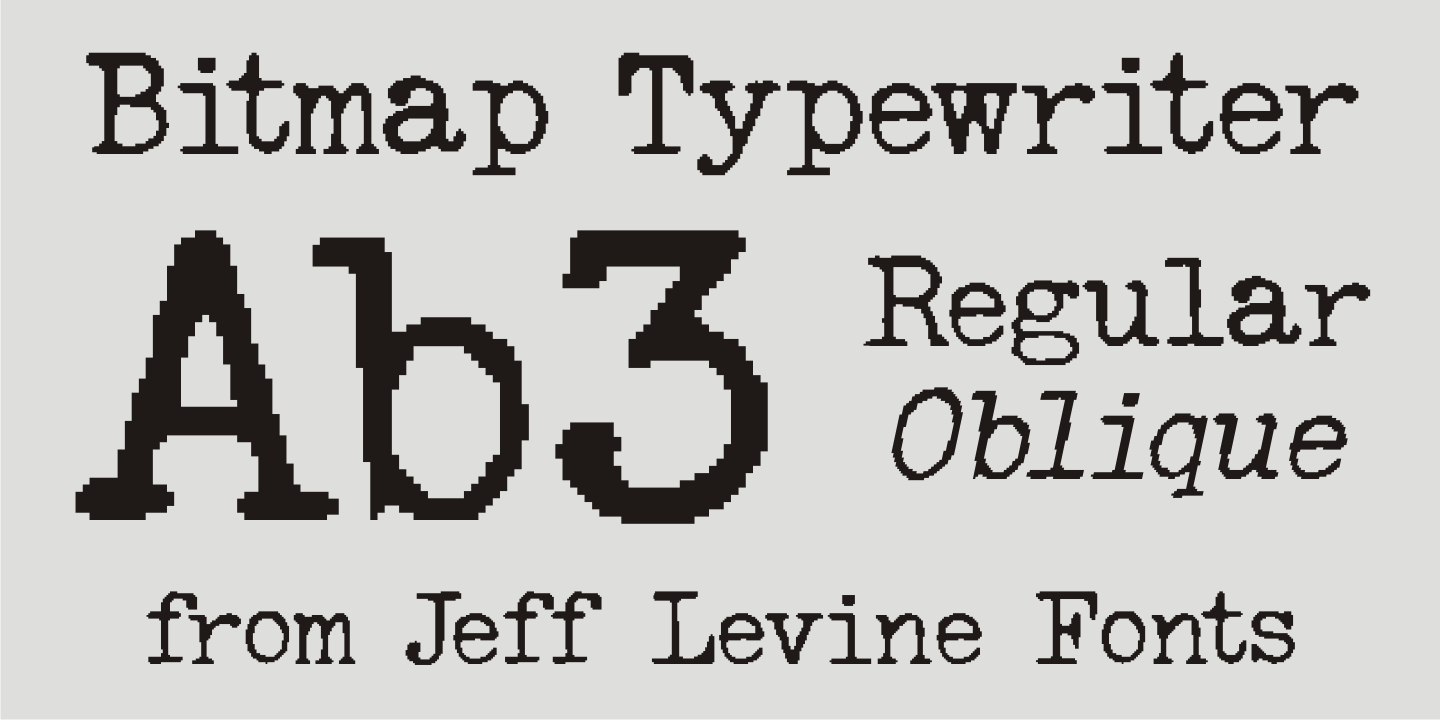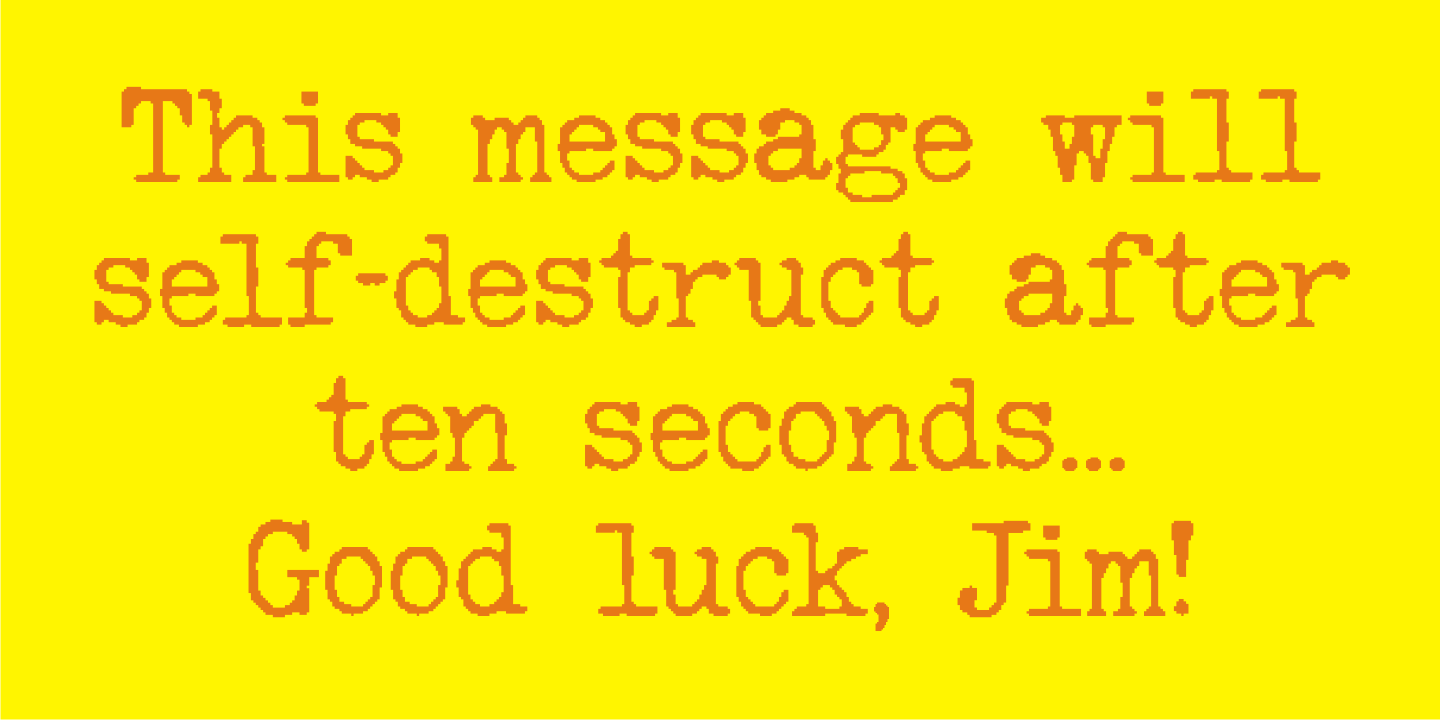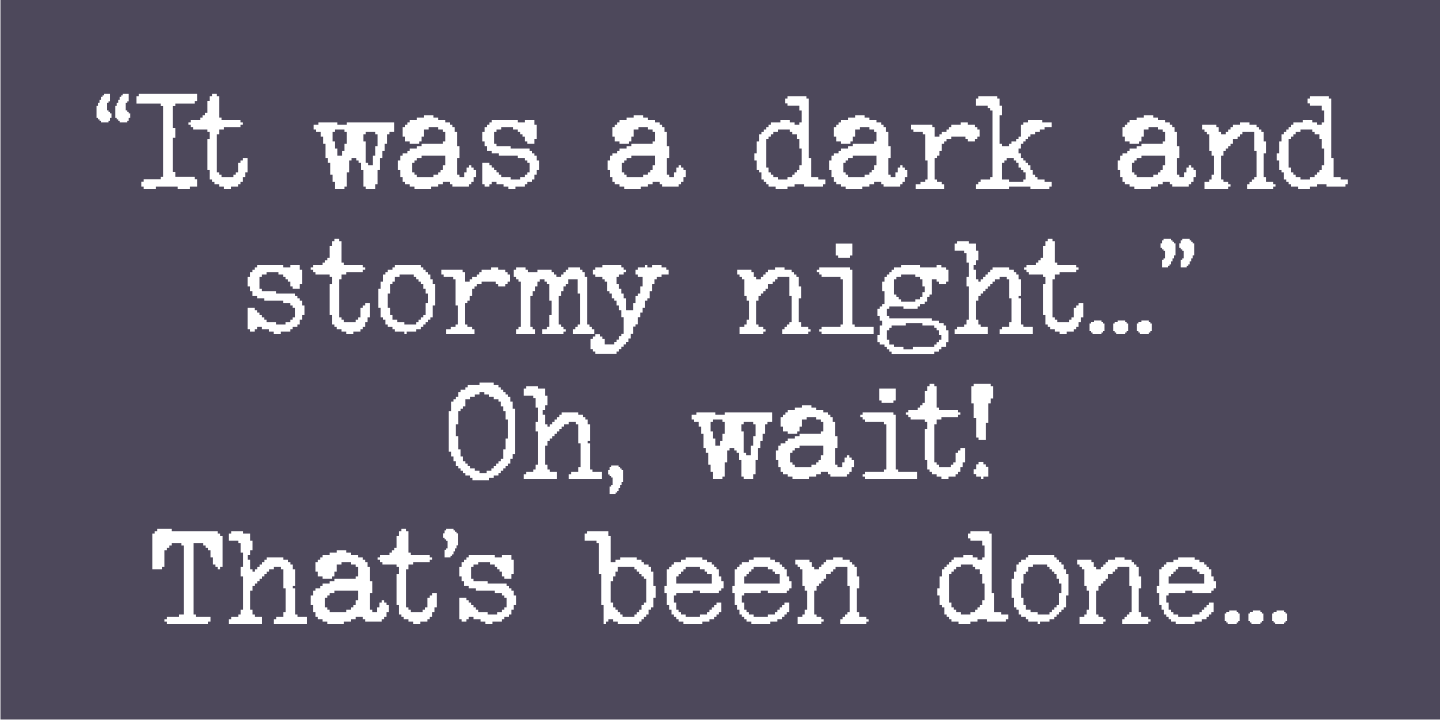
Bitmap Typewriter
Auto-scanning an example of a vintage typewriter font created the design which is now the digital typeface Bitmap Typewriter JNL, available in both regular and oblique versions.